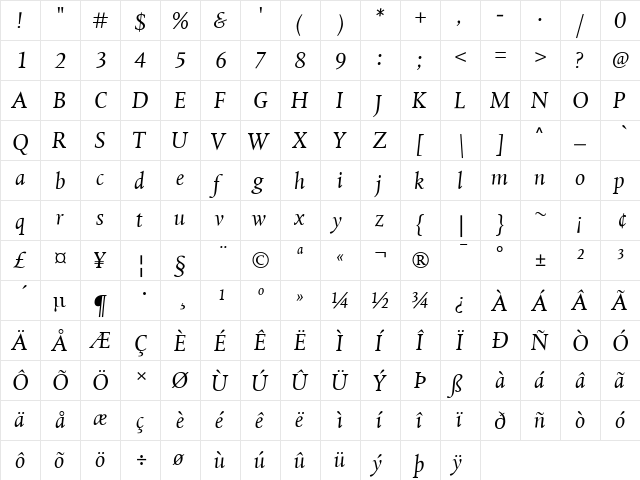
DTLAlbertinaT Italic
Design Context for DTLAlbertinaT Typeface
DTLAlbertinaT offers clean, dependable letterforms without strong stylistic allegiance, making it a practical choice for designers who need flexibility. Its italic angle brings a sense of urgency and motion to the letterforms.
Pro Tip: Use DTLAlbertinaT for emphasis, pull quotes, and subheadings where its slanted energy can add rhythm to the layout.